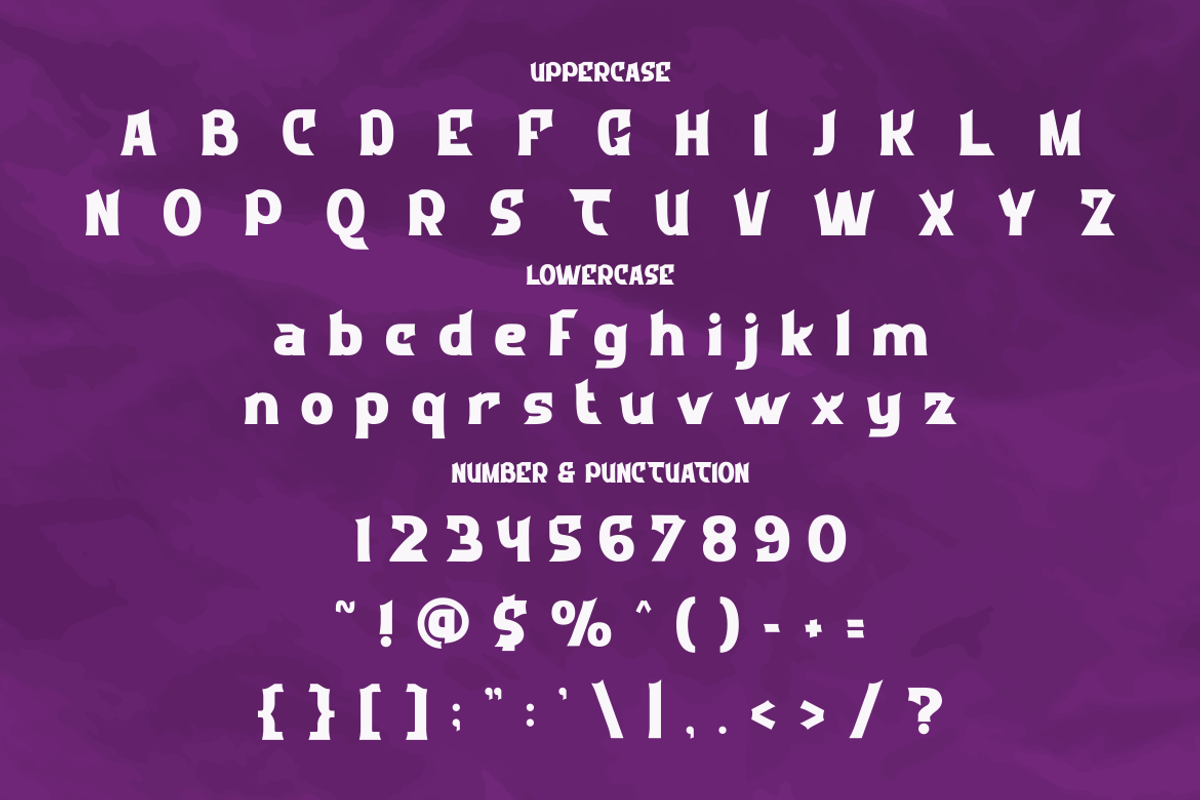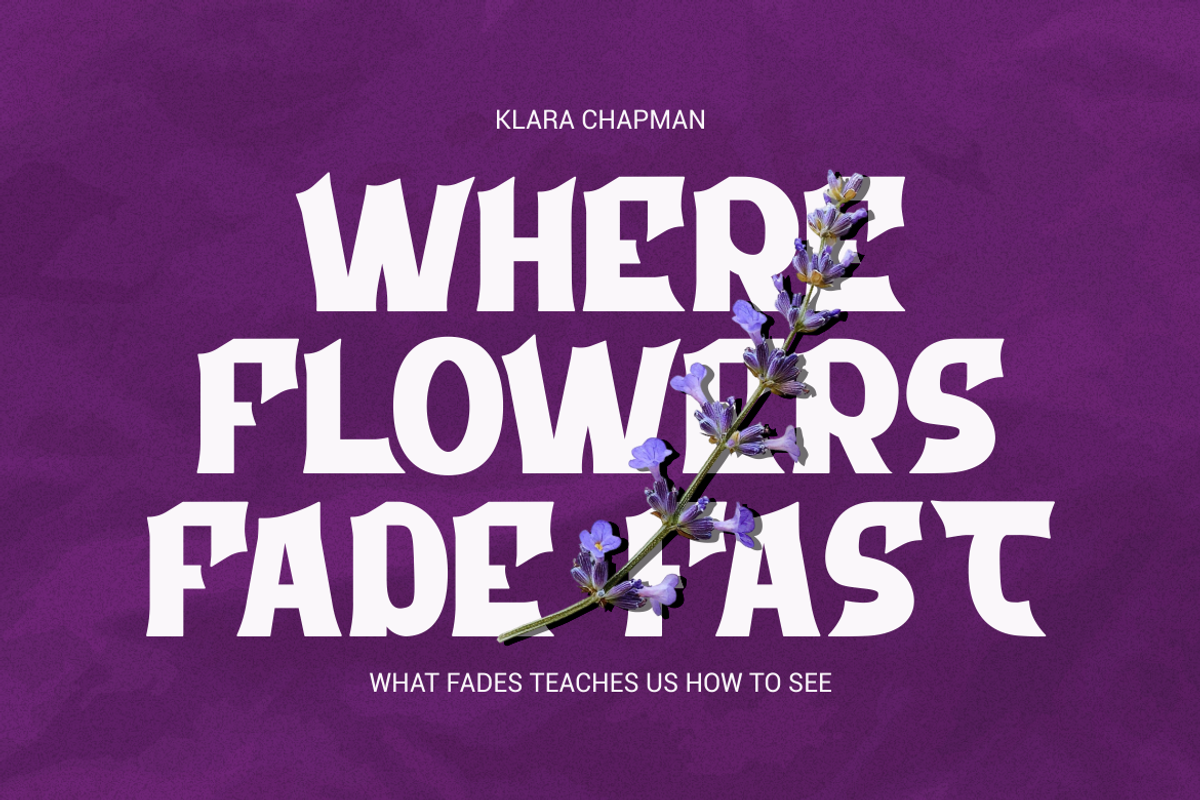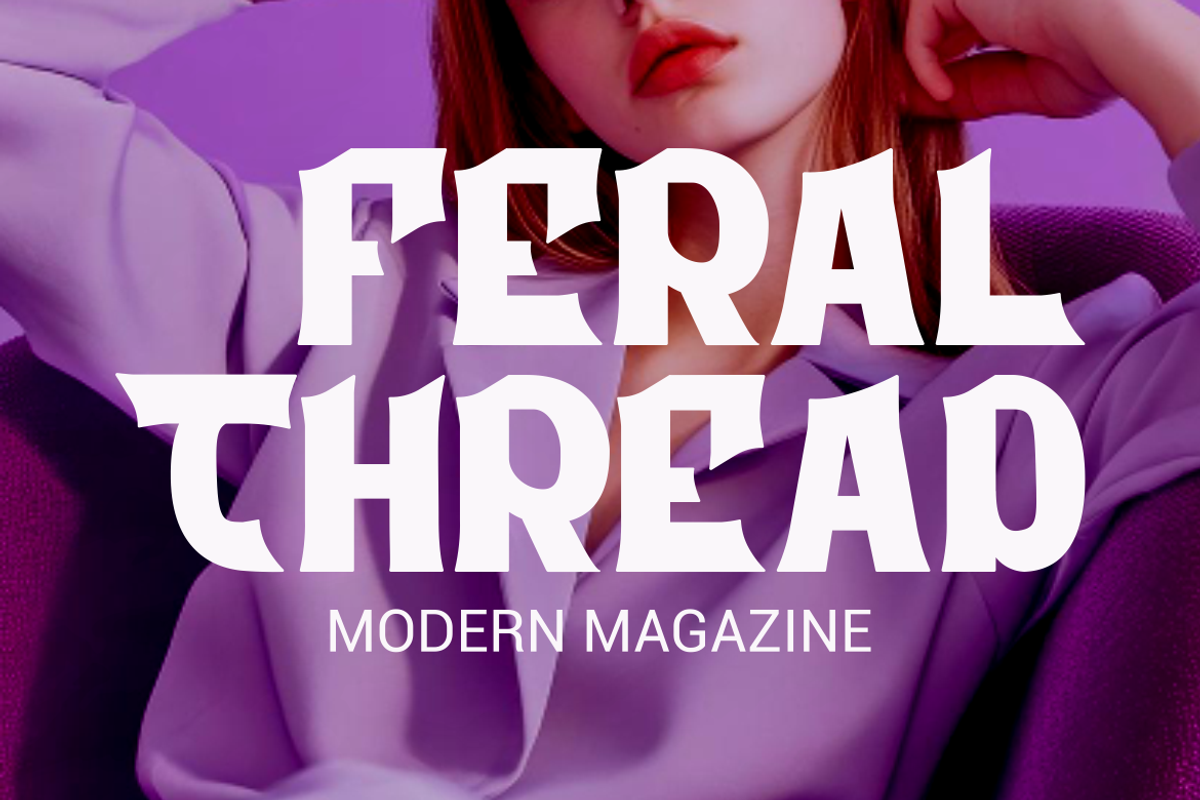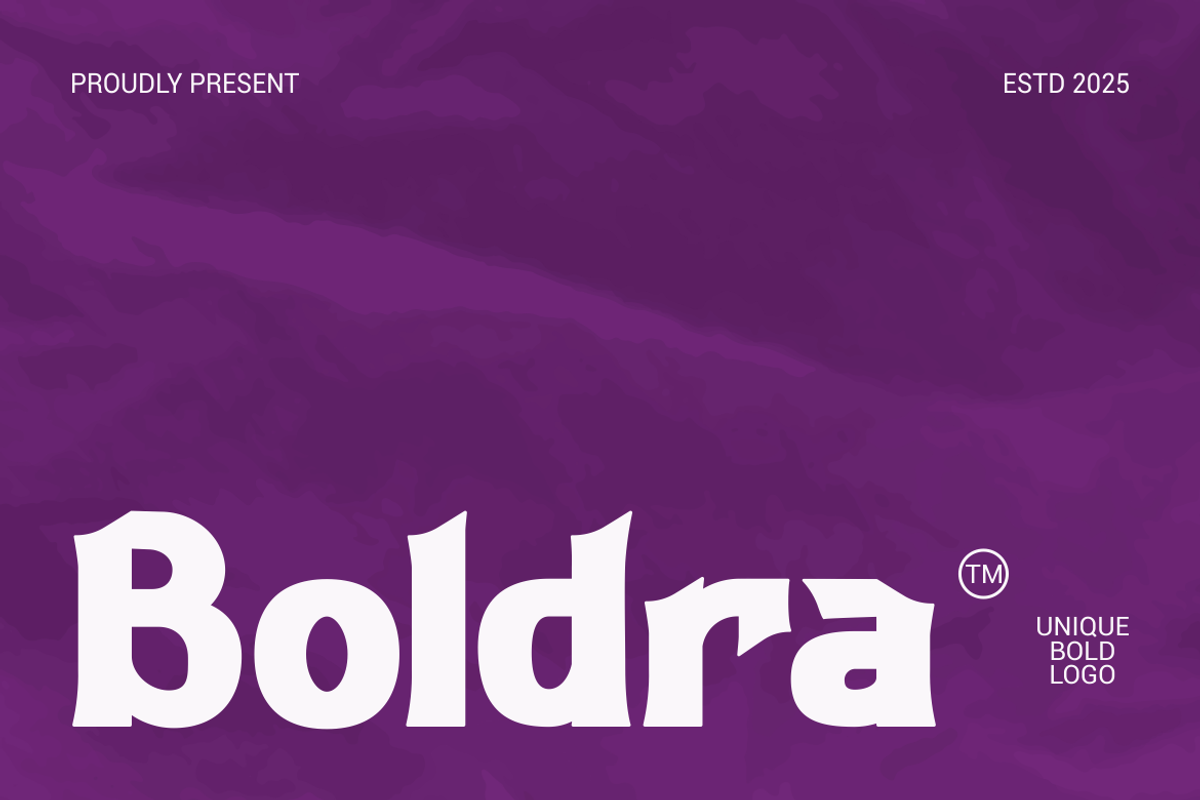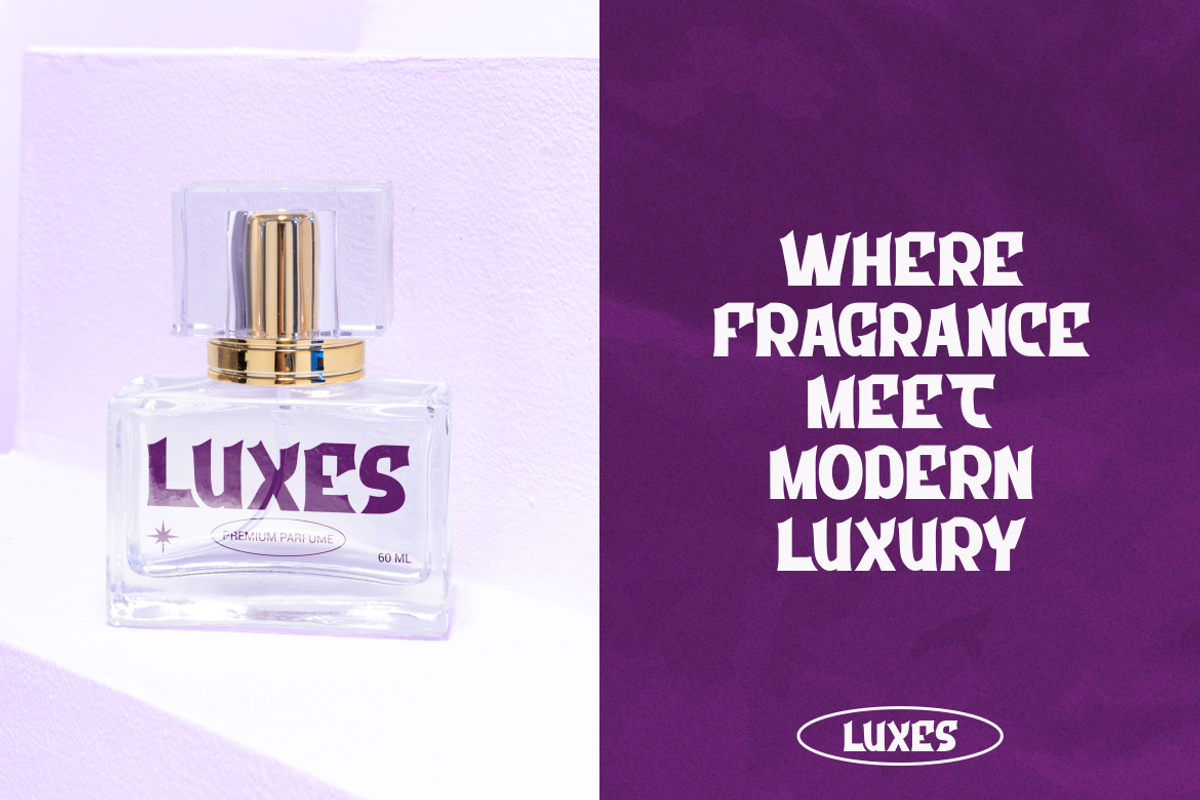
Boldra Unique Logo Font
Boldra Unique Logo Font brings a bold and expressive character style to modern branding work. Each letter shows thick strokes, strong width, and sharp angled cuts that create a powerful silhouette. The font leans into a sculpted display look, where the curves feel intentional and the edges feel dynamic. Its forms carry a mix of geometric balance and handcrafted energy, giving it a standout personality for visual identity projects. The high weight makes every word feel confident, while the sharp terminals add an artistic edge. This mix of bold structure and unique detailing makes the font ideal for designers who want impact and originality in one typeface. Boldra Unique Logo Font uses consistent proportions that support clear reading even in compact layouts.
Boldra Unique Logo Font works well for logos, branding systems, posters, packaging, headlines, magazines, and creative business projects. Its bold style creates a strong presence in titles, product labels, and display compositions. The font adds a confident tone to book covers and also supports artistic concepts for stickers and advertising layouts. The expressive construction helps brands stand apart in both digital and print use. Designers can rely on its clean weight, stable spacing, and iconic shapes for premium results. Its style blends modern attitude with a crafted touch, making it an excellent choice for projects that need a bold display font with personality.